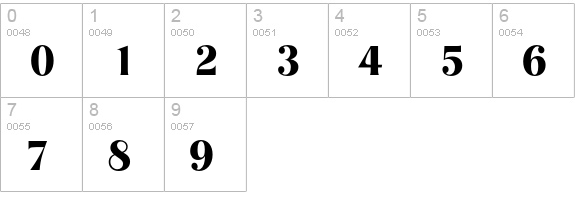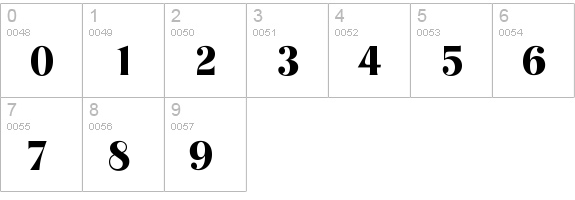
Nashville-DemiBold is a sub-bold, structured variant in the Nashville typeface family \xE2\x80\x94 well suited to sub-headlines and emphasised passages.
Nashville-DemiBold is a versatile and modern font that exudes confidence and sophistication. With its bold and stylish letterforms, this typeface is perfect for creating eye-catching designs that demand attention. The thick strokes and clean lines of Nashville-DemiBold make it a great choice for headlines, logos, and branding materials. Best of all, Nashville-DemiBold is available for free download at FontsMarket.com. This means you can easily add this stunning font to your collection without breaking the bank. Whether you're a seasoned designer or just starting out, Nashville-DemiBold is a must-have font that will elevate your projects to the next level. Download it today and unleash your creativity with this exceptional typeface.